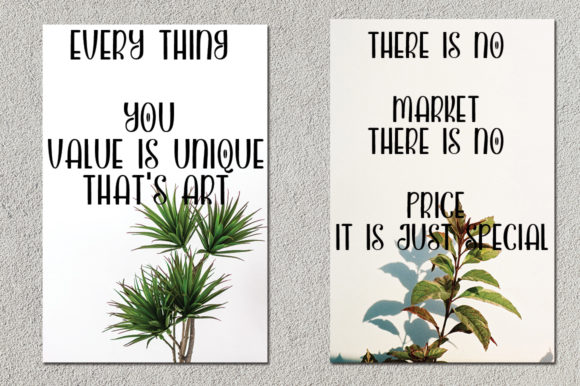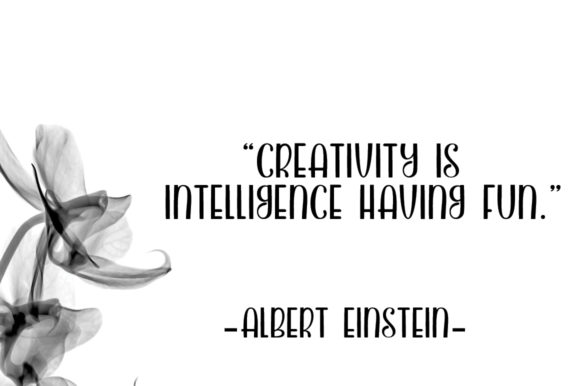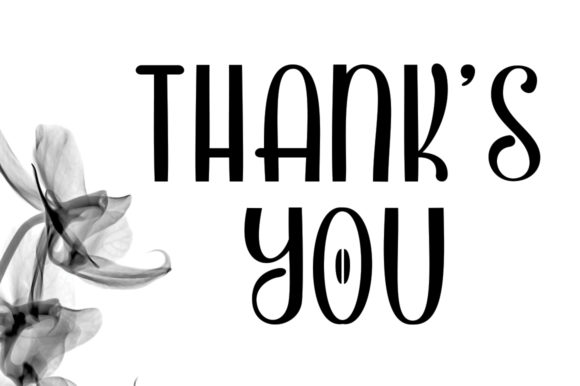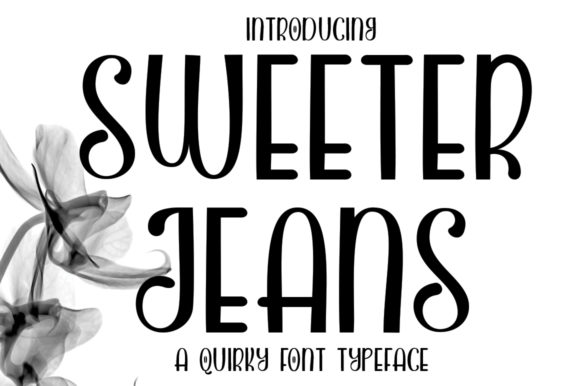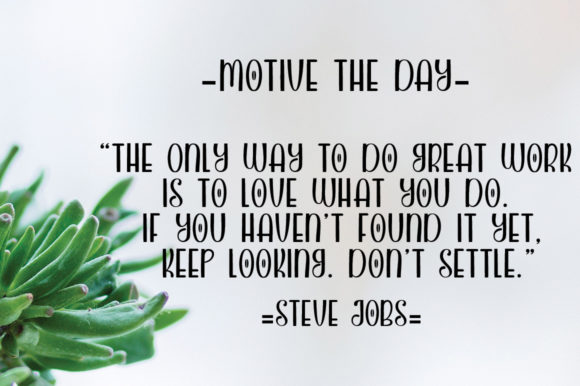
Sweeter Jeans Font
About Sweeter Jeans Font
Sweeter Jeans is an equally cute and smooth script font that’s great for modern-looking crafts. It’s elegant, but also has a distinct personal charm to it.